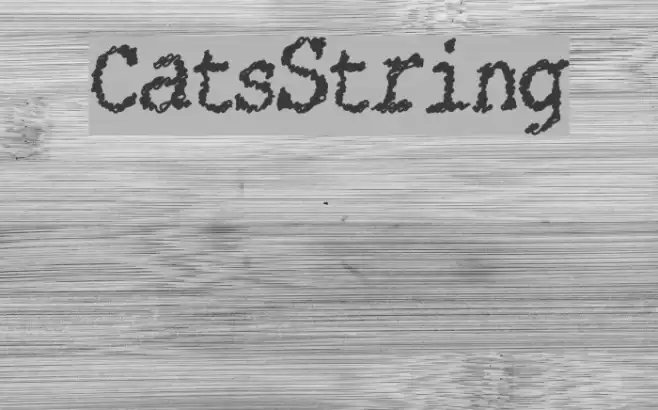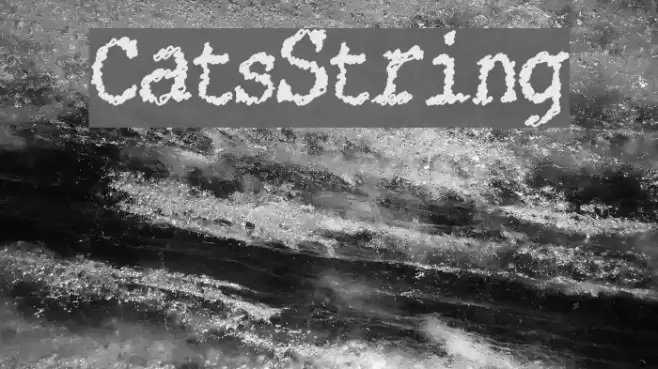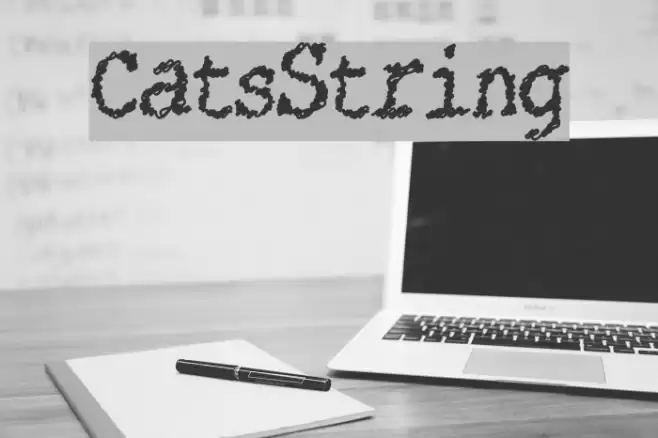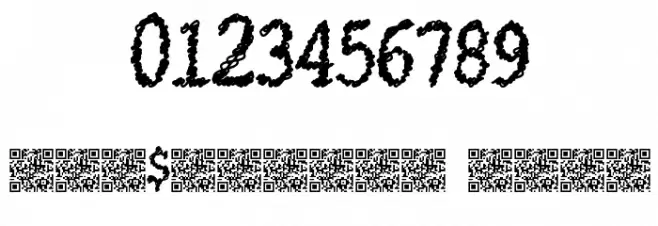
CatsString Font
CatsString Description
This font features a unique, playful design with a textured, fuzzy appearance reminiscent of a string or yarn. The characters are bold and have a slightly irregular outline, giving them a handcrafted feel. The uppercase and lowercase letters maintain a consistent style, with rounded edges and a whimsical flair. Numbers and special characters follow the same design principles, ensuring uniformity across all glyphs. This font's distinctiveness makes it stand out, offering a creative and artistic touch to any project.
A playful, textured font with a handcrafted, fuzzy appearance from Uncategorized fonts.
- Proposed Projects: Ideal for children's books, playful branding, arts and crafts projects, and creative posters.